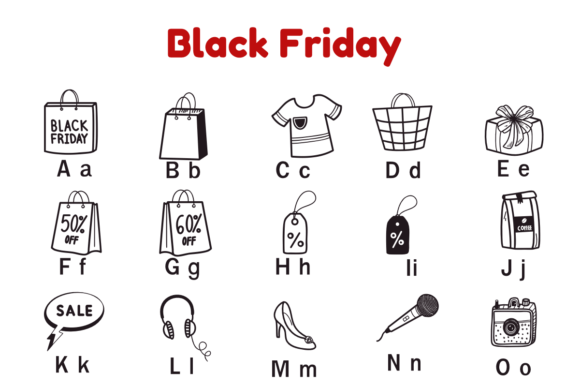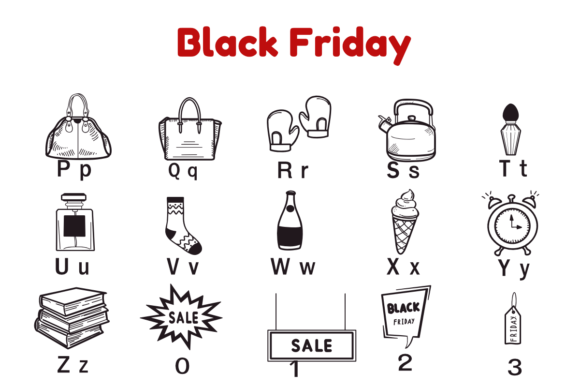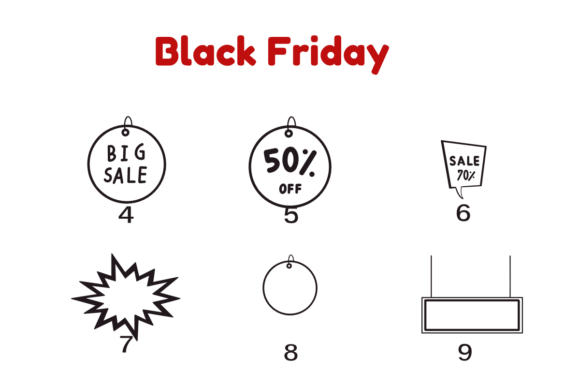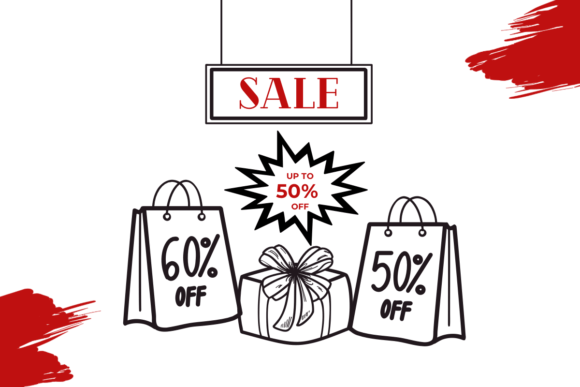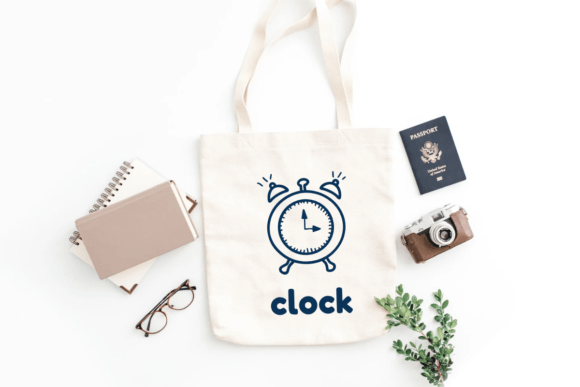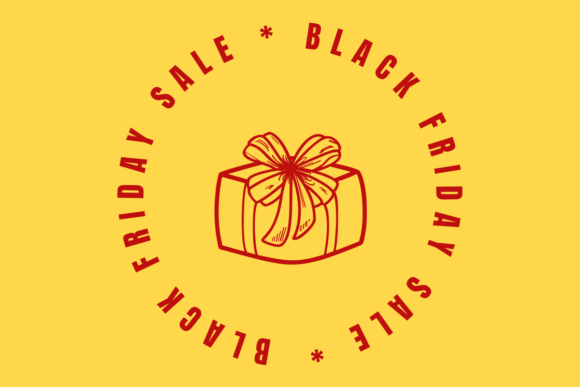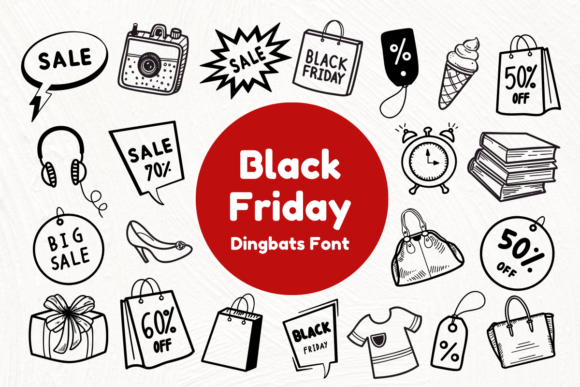
Black Friday Font: Elevate Your Creative Projects with a Sketched Style
Are you a designer, crafter, or DIY enthusiast looking for a unique font to add a personal touch to your creative projects? Look no further than the Black Friday Font, a dingbats font with a charming sketched style. In this article, we’ll explore the features and benefits of this versatile font, and how it can enhance your wedding invitations, DIY projects, crafts, decorations, logos, and many other creative ideas.
What is Black Friday Font?
Black Friday Font is a dingbats font that features a distinctive sketched style, giving it a hand-drawn and organic feel. The font is designed to add a touch of personality and whimsy to your creative projects, making it perfect for those who want to stand out from the crowd. With its unique and eye-catching design, Black Friday Font is sure to capture the attention of your audience and leave a lasting impression.
Features of Black Friday Font
So, what makes Black Friday Font so special? Here are some of its key features:
- Sketched style: The font’s sketched style gives it a hand-drawn and organic feel, making it perfect for adding a personal touch to your creative projects.
- Dingbats font: As a dingbats font, Black Friday Font features a wide range of symbols, icons, and graphics that can be used to add visual interest to your projects.
- Versatile: Black Friday Font can be used for a wide range of creative projects, from wedding invitations and DIY crafts to logos and decorations.
Uses for Black Friday Font
So, how can you use Black Friday Font in your creative projects? Here are some ideas to get you started:
- Wedding invitations: Add a personal touch to your wedding invitations with Black Friday Font’s unique and eye-catching design.
- DIY crafts: Use Black Friday Font to add a touch of personality to your DIY crafts, such as handmade cards, gift tags, and decorations.
- Logos and branding: Create a memorable logo or brand identity with Black Friday Font’s distinctive sketched style.
- Decorations: Use Black Friday Font to create custom decorations, such as banners, garlands, and signs, for parties and special events.
- Stationery and gifts: Add a personal touch to your stationery and gifts with Black Friday Font’s unique and eye-catching design.
Tips for Using Black Friday Font
Here are some tips for getting the most out of Black Friday Font:
- Experiment with different colors: Black Friday Font looks great in a range of colors, so don’t be afraid to experiment and find the perfect hue for your project.
- Mix and match with other fonts: Combine Black Friday Font with other fonts to create a unique and eye-catching design.
- Use it sparingly: While Black Friday Font is a versatile font, it can be overwhelming if used too much. Use it sparingly to add a touch of personality to your project.